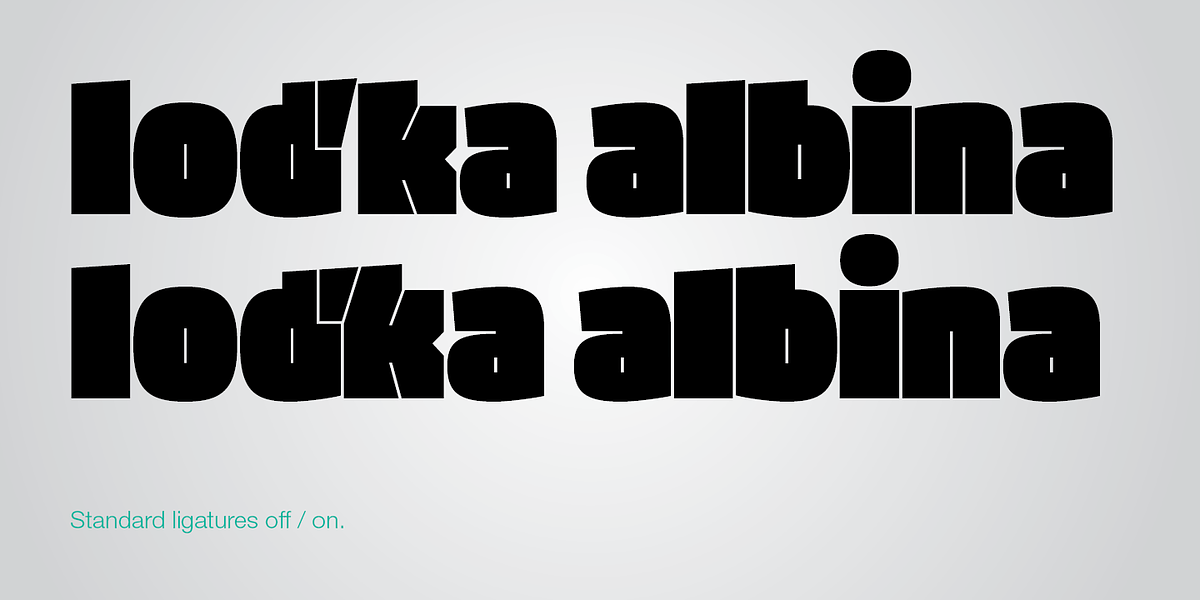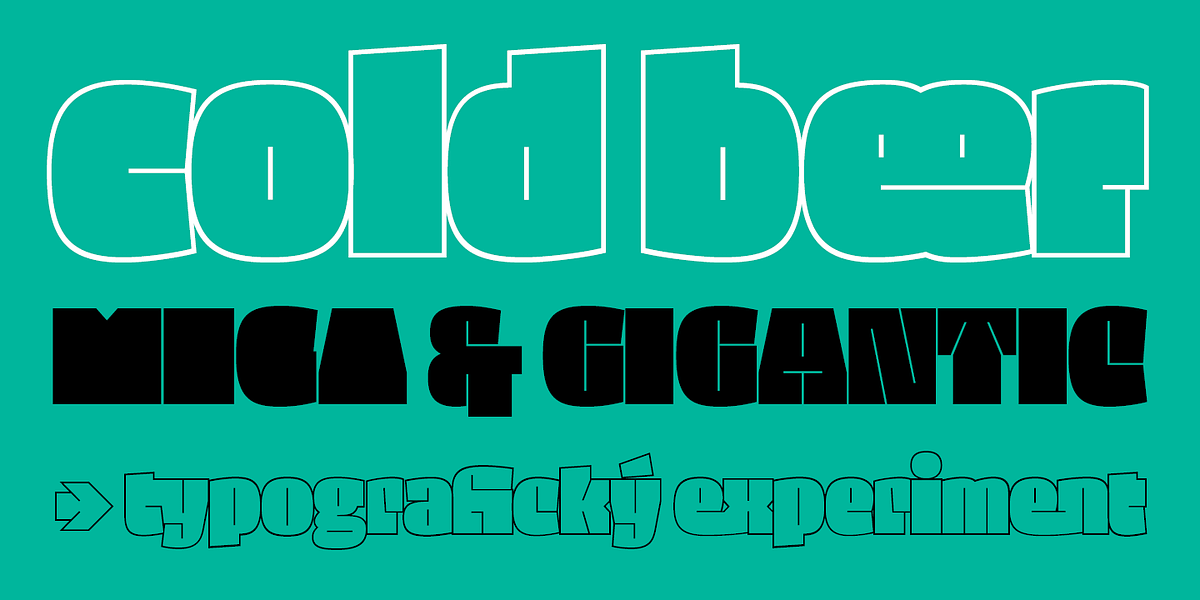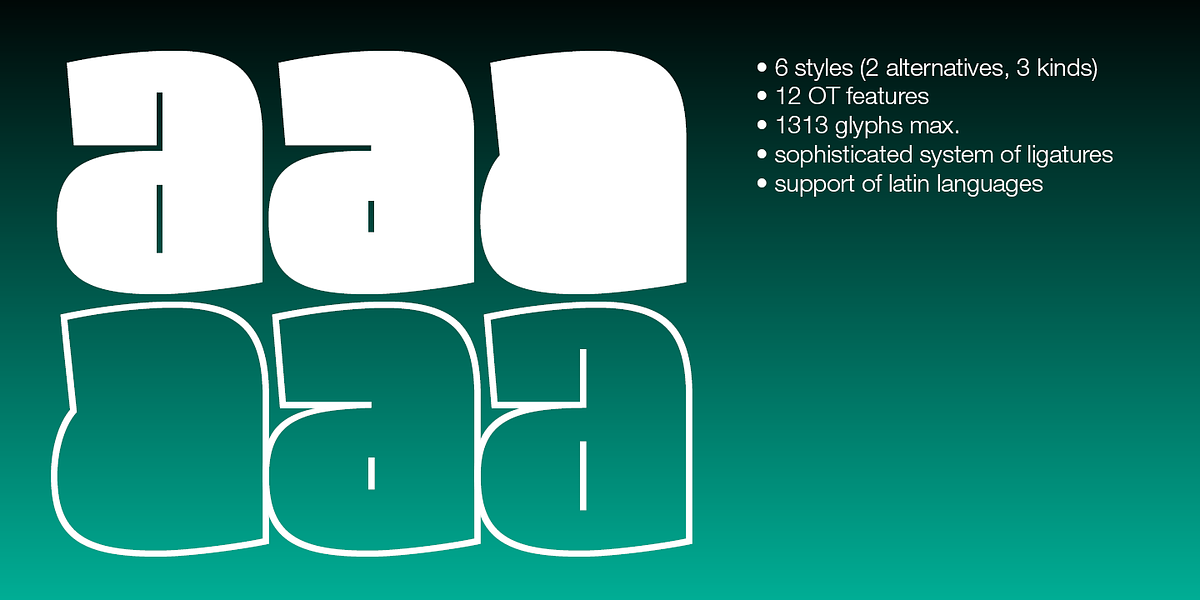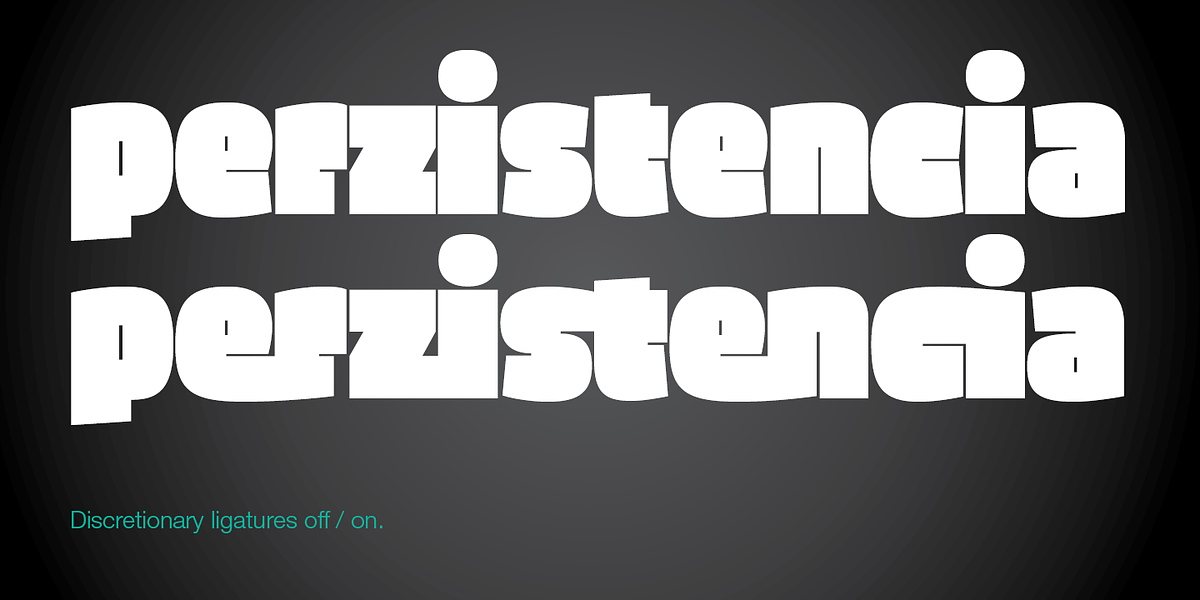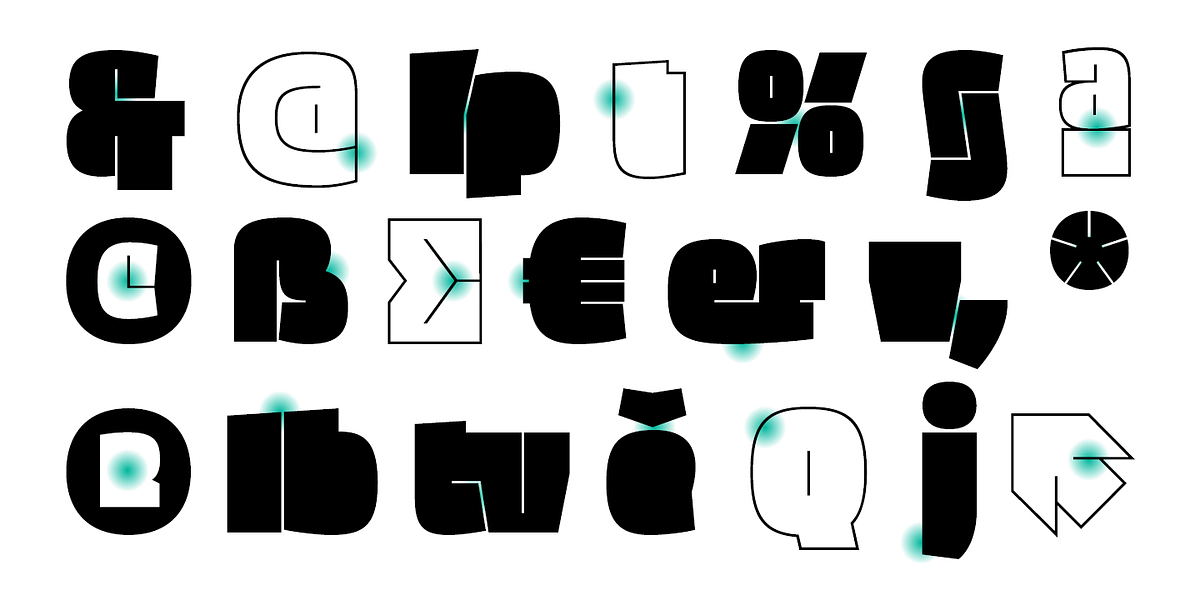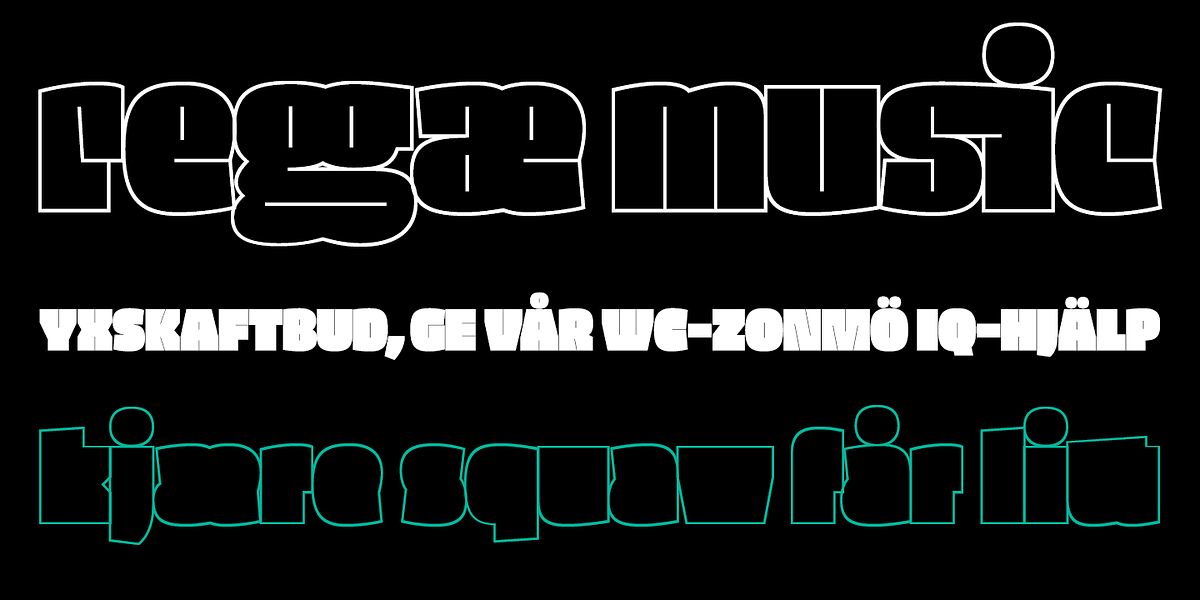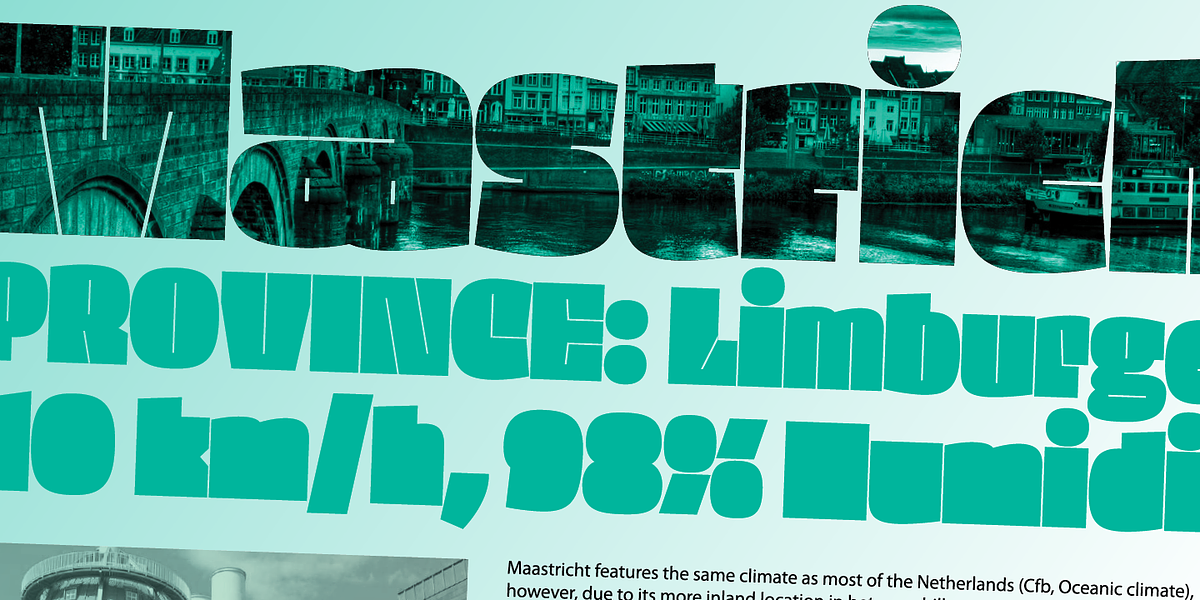
Densit
Densit is a heavy minimal display typeface designed for short, impactful text. It features six styles with varying line lengths and contrast, including stencil, sans, and serif variations. Densit emphasizes density and legibility in large sizes, making it suitable for applications like posters, headlines, and branding where visual impact is crucial. The typeface also includes a sophisticated system of ligatures for aesthetic refinement and space-saving.